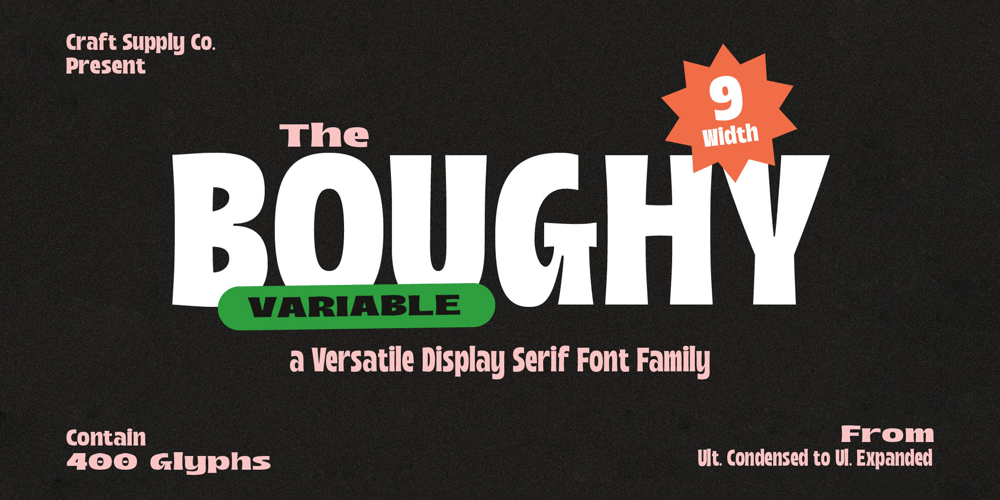
Boughy
Boughy font
Boughy Font Family was designed by Trio Nazzar Saputra, Wahyu Hadi Yuana and published by Craft Supply Co. Boughy contains 9 styles and family package options. Boughy – Font Family is a versatile display serif font family with 9 weights from ultra condensed to extra expanded. perfect for headings, titles, branding and much more.Boughy – Font Family contains everything you need to create stunning typography – from headline fonts to body text fonts – all in one place. Whether you’re starting out or you’ve been designing for years, Boughy has everything you need.